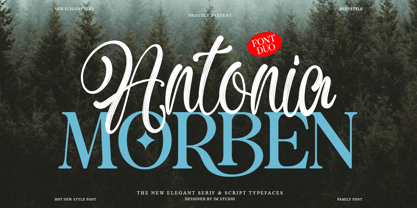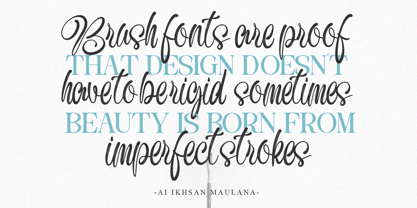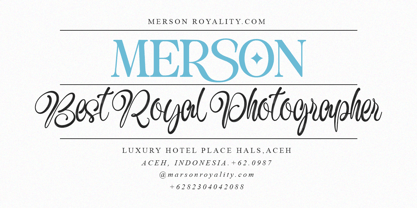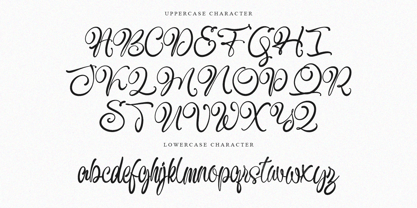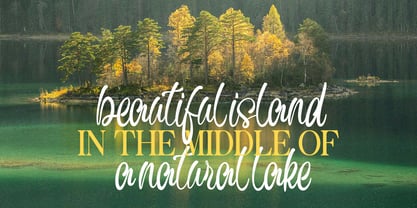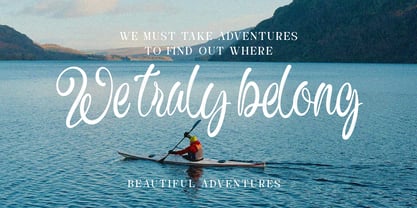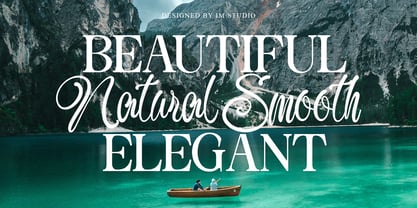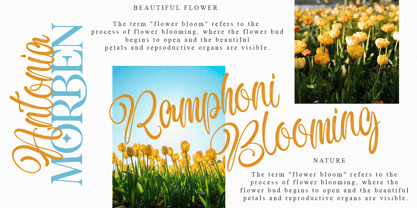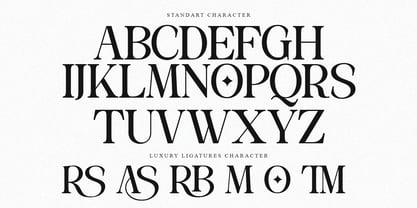
Antonia Morben
by IM Studio
The Antonia Morben Font Family was designed by Ikhsan Maulana and published by IM Studio. Antonia Morben contains 2 styles and family package options. More about this family
Antonia Morben — The Perfect Font Duo
Antonia Morben is a charming and cheerful font duo that blends delightful simplicity with an elegant handwritten style. The combination of a tall, clean serif font (Antonia Morben) and a smooth, flowing script font (Antonia Morben Script) creates a delightful balance—sweet, modern, and full of personality.
Antonia Morben is bright and cheerful with its tall, rounded letters—perfect for serif headlines, quotes, and branding that requires a friendly, approachable feel.
Antonia Morben's script font complements it beautifully, adding a personal touch of handwritten letters with its soft curves and graceful connections. Together, they form a naturally harmonious pair that feels organic and uplifting.
Ideal for logos, invitations, packaging, social media, and DIY projects, this duo brings warmth and positivity to any design. Add a touch of sweetness and elegance—Antonia Morben makes your words bloom with personality.
Features:
– Combination of Serif and Handwritten Fonts
– Perfect Contrast for Modern Designs
– Suitable for Branding, Invitations, and Social Media
– Clean, Friendly, and Versatile Aesthetic
– Capital Letters, Lowercase Letters, Numbers, and Punctuation
Designers: Ikhsan Maulana
Foundry: IM Studio